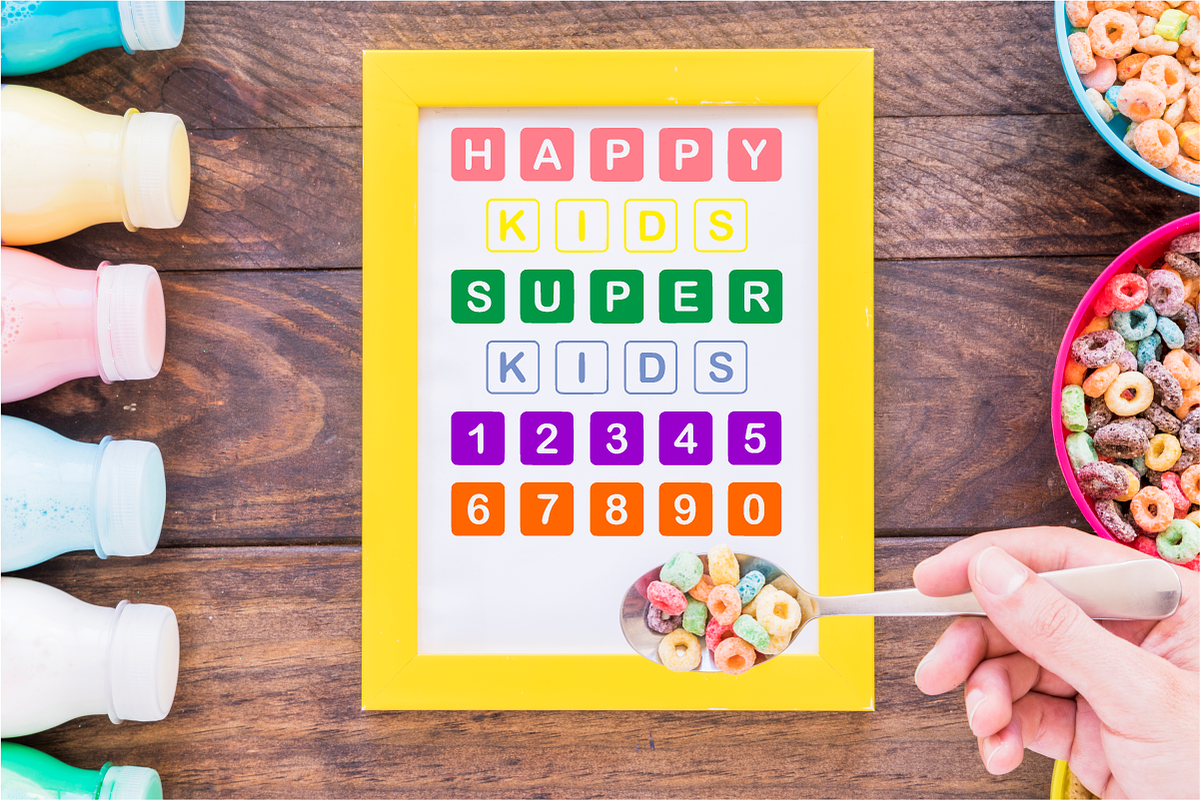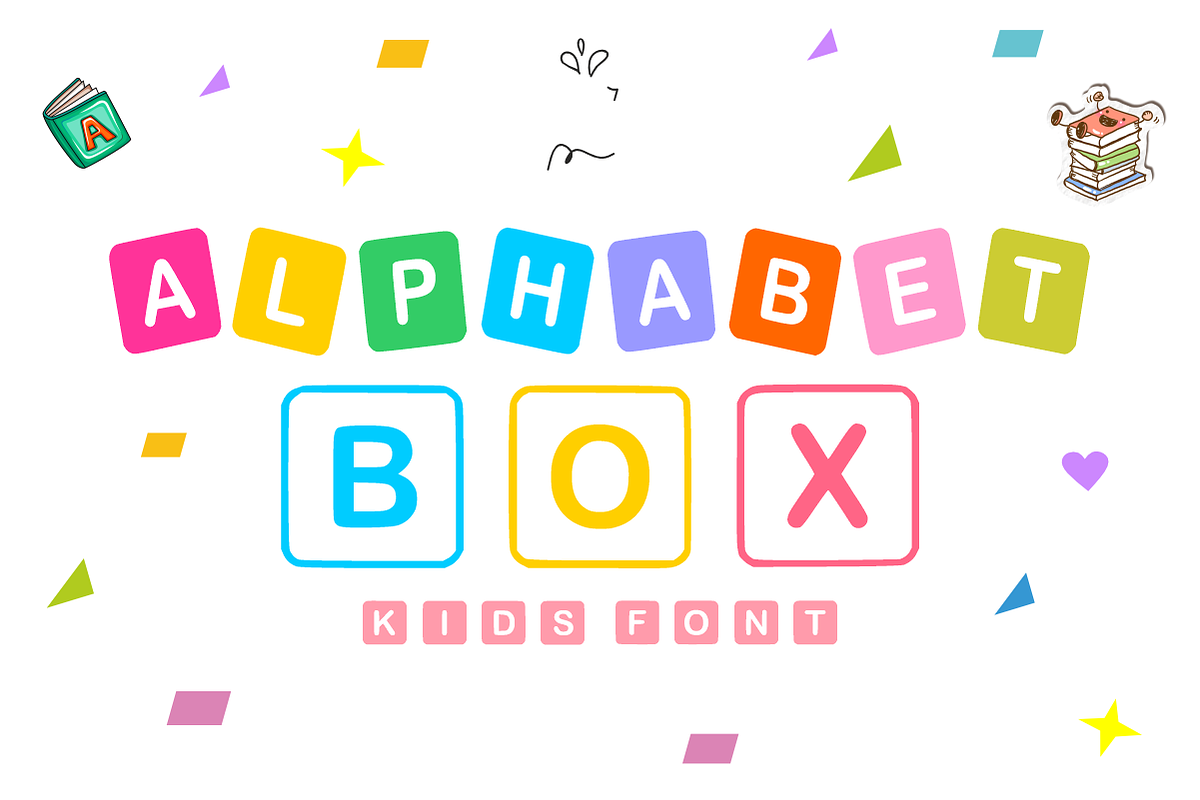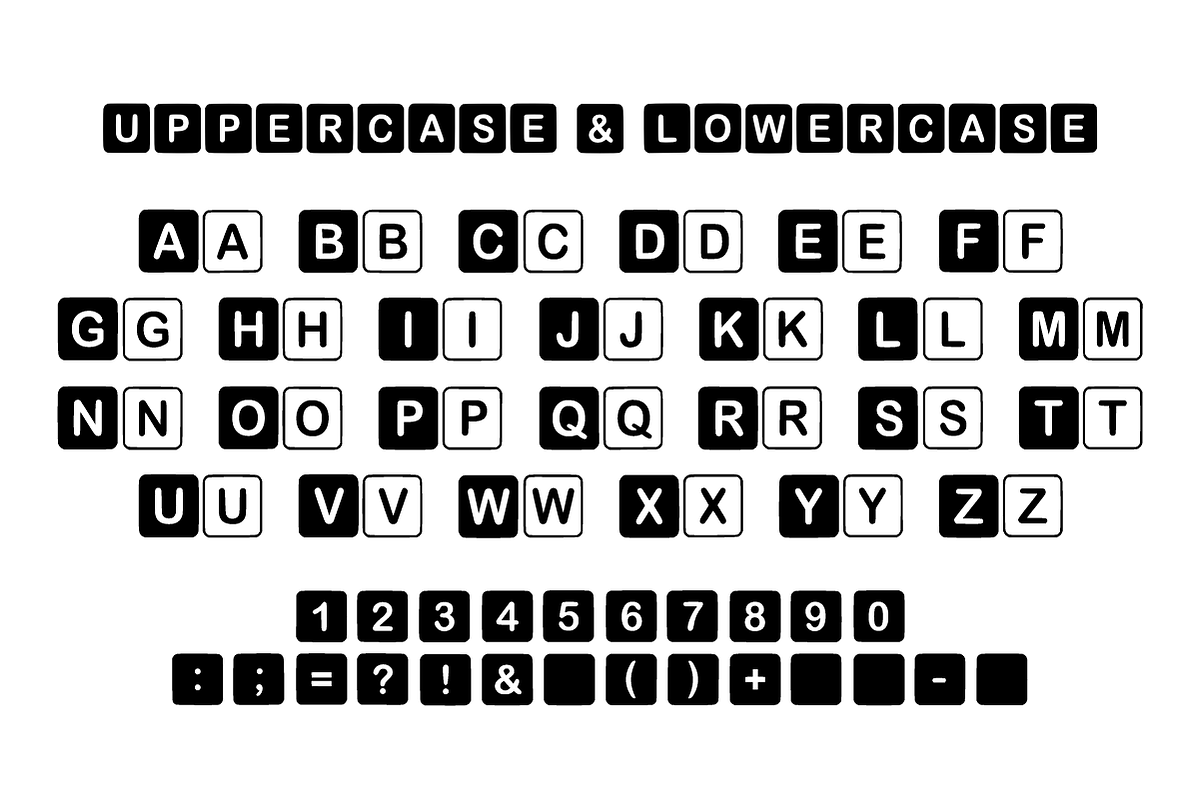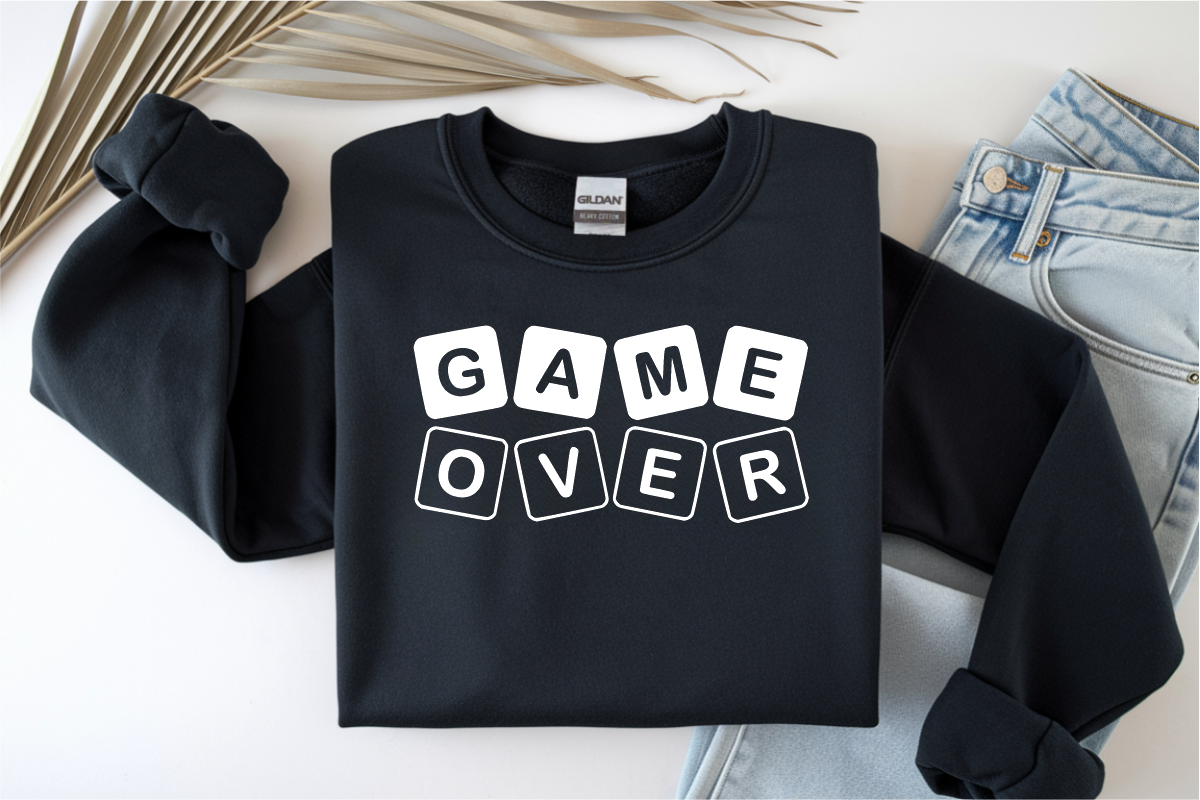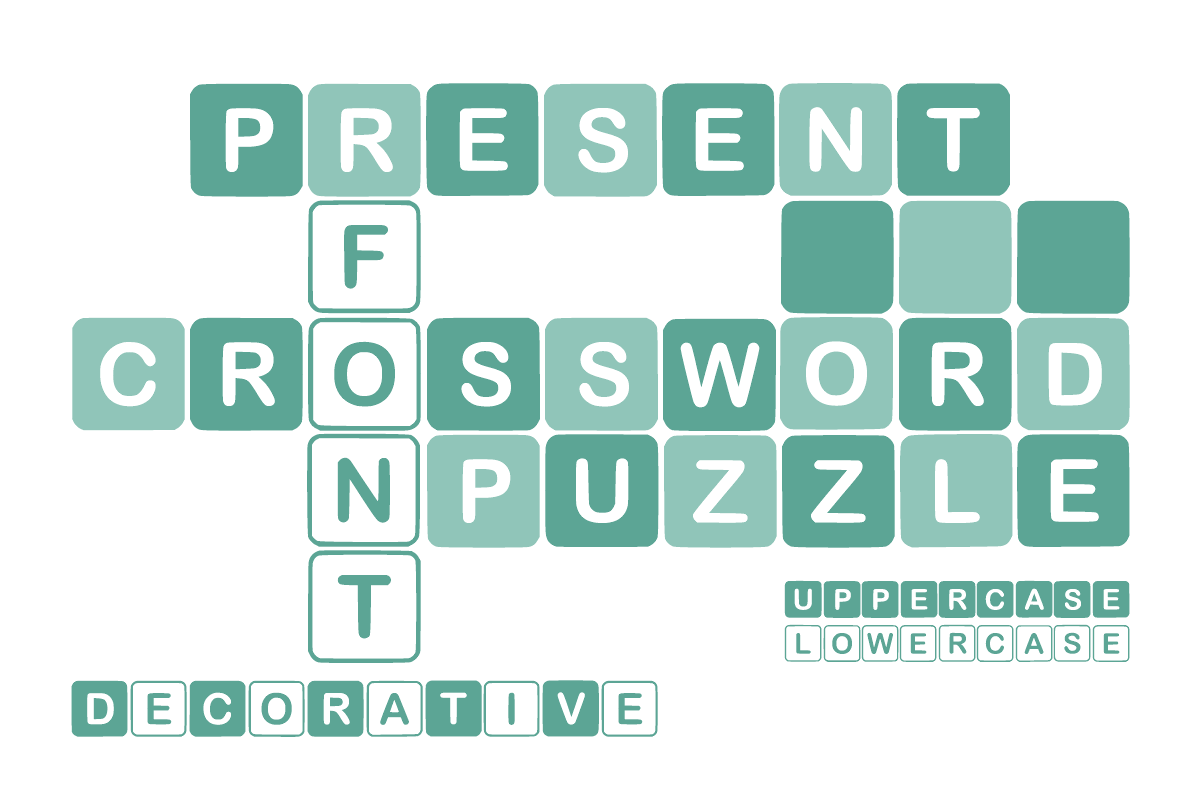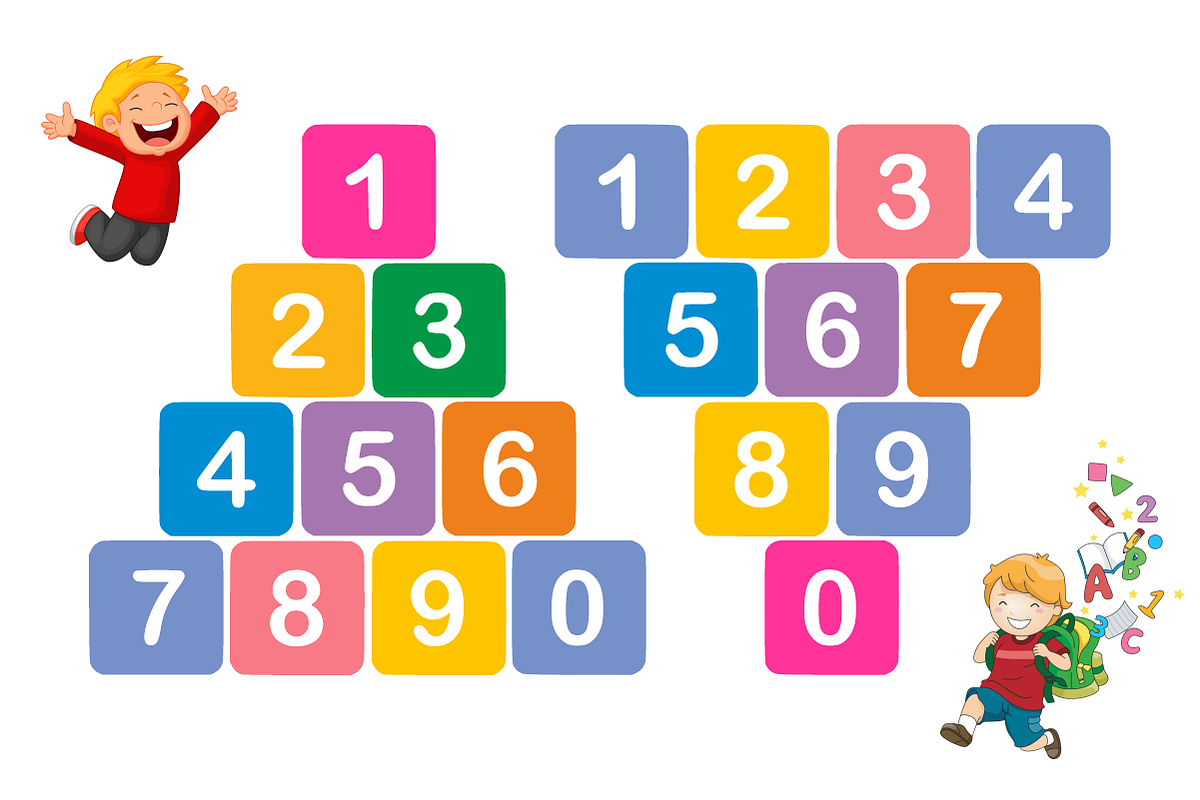
Crossword Puzzle - Tile Game Font
Crossword Puzzle is a creative, game-inspired display font featuring letters set inside classic rounded square tile blocks. Designed to mimic iconic word search and crossword puzzle boards, this clever decorative font brings an interactive, playful pop to your game graphics, educational tools, and craft projects. Every character is cleanly vectorized to ensure high-resolution prints and effortless cutting on Cricut and Silhouette machines.
Uppercase Character Set
Numbers & Basic Punctuation
Ideal For: